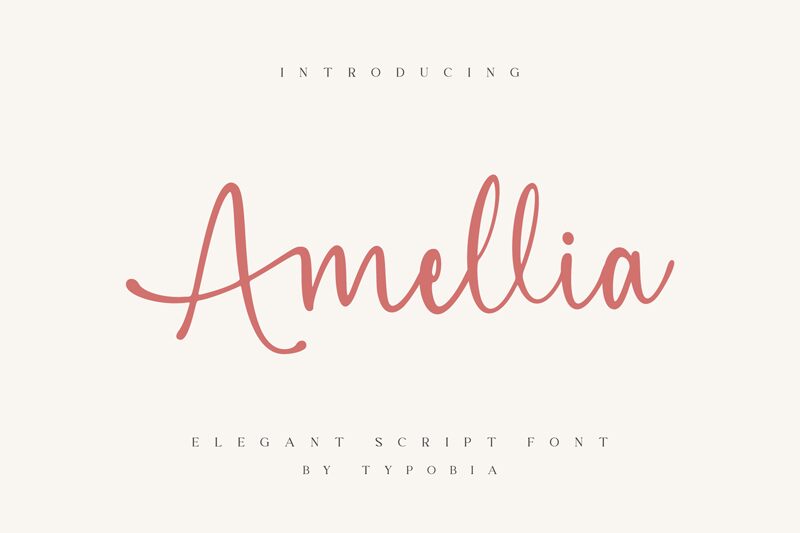
Amellia is a handwritten font designed by Revo Farisky, with a light weight feel. Perfect for adding a touch of elegance to any project, Amellia is suitable for creating invitations, posters, logos and branding designs.
Designed by Revo Farisky from Typobia in 2021